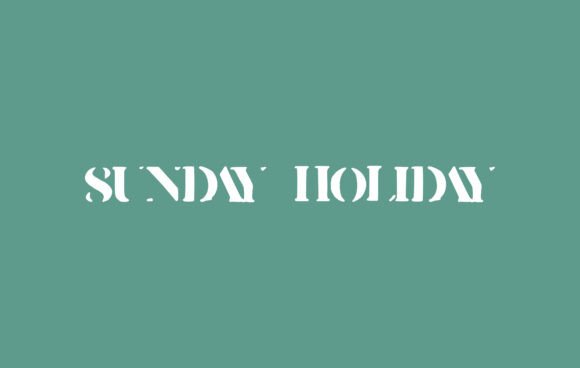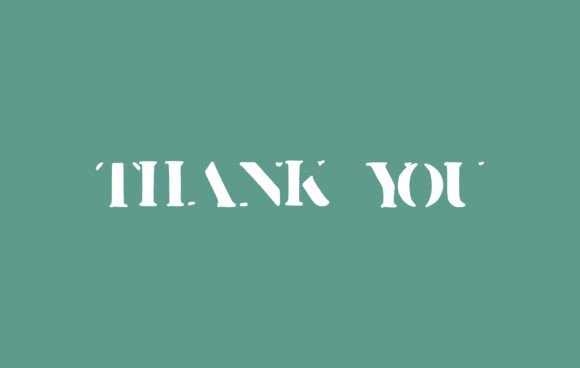
Introducing Gael Font: The Perfect Serif Font for Your Creative Projects
Are you looking for a font that can add a touch of romance and elegance to your designs? Look no further than Gael Font, an authentic serif font that is sure to become a true favorite in your creative arsenal. With its expertly designed curves and lines, Gael Font is the perfect choice for a wide range of design projects, from magazine headlines to wedding invitations.
What Makes Gael Font So Special?
Gael Font is a beautifully crafted serif font that boasts a romantic touch, making it perfect for designers who want to add a touch of sophistication and elegance to their work. Its legibility is top-notch, making it suitable for use as both title and body text. Whether you’re working on a magazine layout, social media graphics, or branding materials, Gael Font is sure to impress.
Key Features of Gael Font
- Authentic Serif Design: Gael Font features a traditional serif design that is both classic and timeless.
- Romantic Touch: The font’s curves and lines have been expertly crafted to add a touch of romance and elegance to your designs.
- Legible: Gael Font is highly legible, making it perfect for use as both title and body text.
- Versatile: This font is suitable for a wide range of design projects, including magazine headlines, social media graphics, branding materials, wedding invitations, and more.
Why Choose Gael Font for Your Design Projects?
There are many reasons why Gael Font should be your go-to choice for your design projects. Here are just a few:
- Elegance and Sophistication: Gael Font adds a touch of elegance and sophistication to any design project.
- Flexibility: This font is highly versatile and can be used for a wide range of design projects.
- Easy to Read: Gael Font is highly legible, making it perfect for use as both title and body text.
- Unique and Creative: With Gael Font, you can add a unique and creative touch to your designs that will set them apart from the rest.
How to Use Gael Font in Your Design Projects
Gael Font is easy to use and can be incorporated into a wide range of design projects. Here are a few ideas to get you started:
- Magazine Headlines: Use Gael Font to create eye-catching headlines for your magazine layouts.
- Social Media Graphics: Add a touch of elegance and sophistication to your social media graphics with Gael Font.
- Branding Materials: Use Gael Font to create professional and elegant branding materials, such as logos and business cards.
- Wedding Invitations: Add a touch of romance and elegance to your wedding invitations with Gael Font.
In conclusion, Gael Font is a beautifully crafted serif font that is sure to become a true favorite in your creative arsenal. With its elegant design, legibility, and versatility, Gael Font is the perfect choice for a wide range of design projects. Whether you’re a designer, crafter, or DIY enthusiast, Gael Font is sure to inspire your creativity and take your designs to the next level.